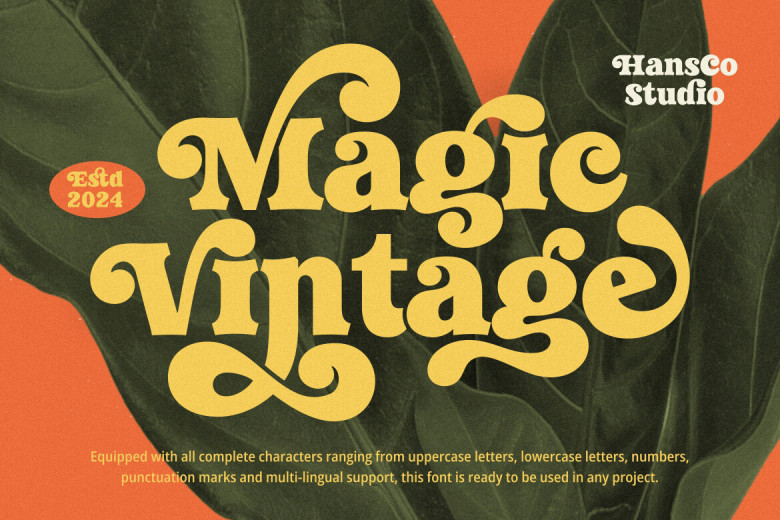
Magic Vintage Font
Magic Vintage is an elegant retro serif font that captures the essence of vintage style with strong, bold lines, timeless letters, and a confident yet seductive impression. Perfect for branding projects such as posters and logos as well as creative endeavors of any kind – Magic Vintage will add vintage style charm.
Magic Vintage lends itself well to branding projects of any sort.
Magic Vintage Serif Font